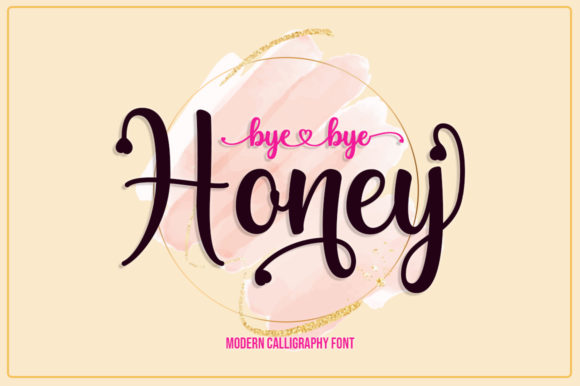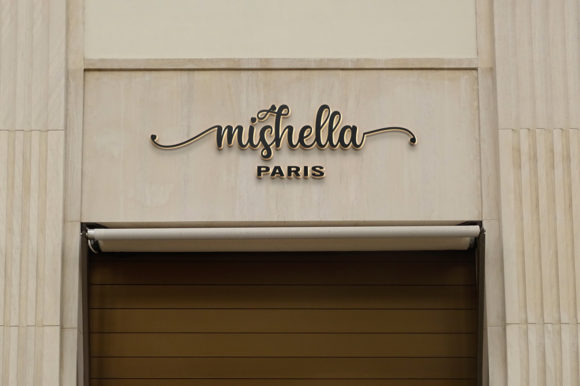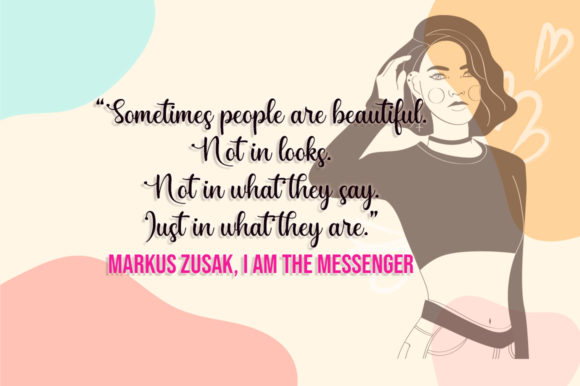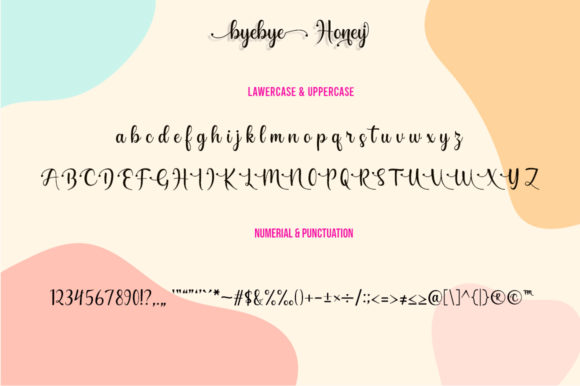
About Bye Bye Honey Font
Bye Bye Honey is a spectacular handwritten font. It looks lovely on invitations, thank you cards, quotes, greeting cards, logos, business cards and every other design which needs a romantic touch.